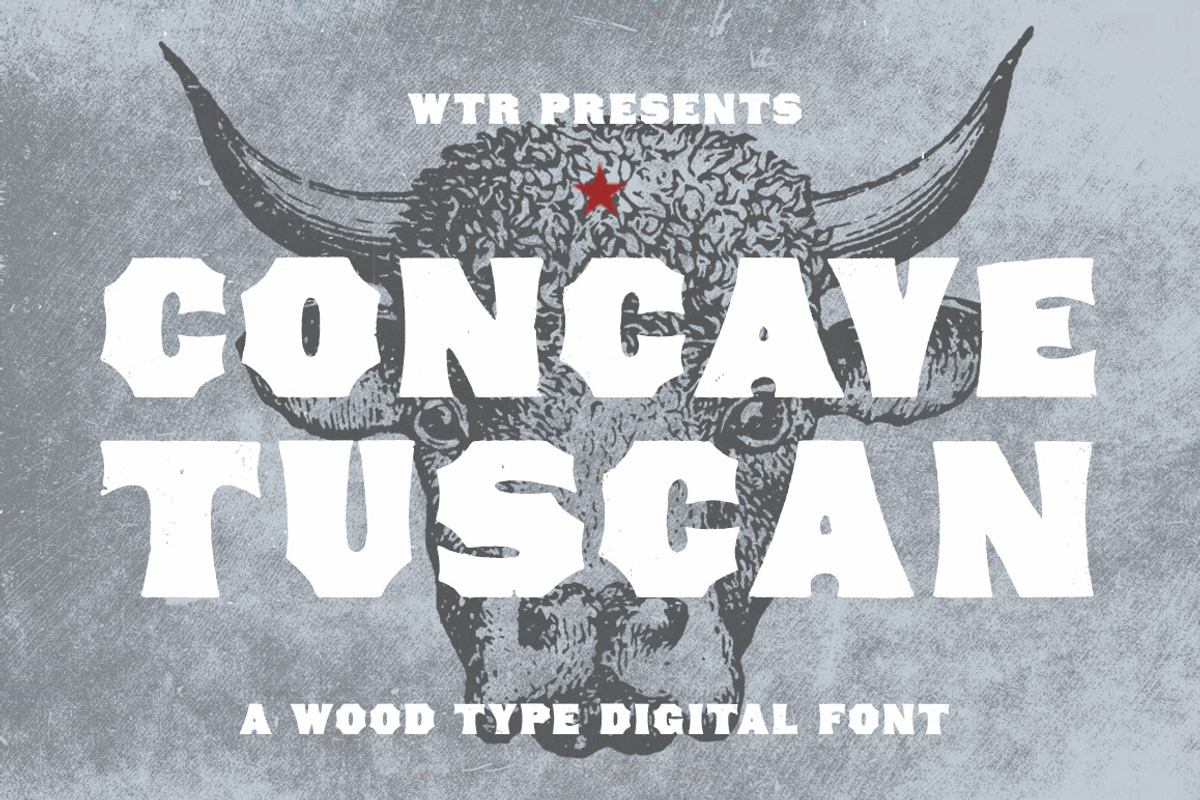
Concave Tuscan Font is ideal for vintage poster design, classic Americana branding, Western-themed projects, historical signage reproduction, antique shop marketing, old-fashioned barbershop logos, traditional craft packaging, and nostalgic advertising campaigns.
What makes Concave Tuscan Font so exciting is its authentic Victorian-era character that perfectly captures the ornate elegance and decorative sophistication of 19th-century typography through distinctive concave letterforms and traditional Tuscan styling. This historic display typeface features characteristic bifurcated serifs and curved letter shapes that create an unmistakably period-appropriate aesthetic. The font's vintage authenticity and decorative appeal make it ideal for brands and projects seeking to communicate heritage, craftsmanship, and traditional American design values.
The Concave Tuscan Font family includes regular and bold variations, along with decorative elements and period-appropriate ornamental features that provide designers with comprehensive tools for creating authentic Victorian-style typography systems.
Concave Tuscan Font Free Download presents designers with access to premium historical typography that perfectly embodies the craftsmanship and decorative artistry of America's golden age of lettering. This distinctive typeface excels in applications where historical authenticity and vintage charm are essential brand elements, making it perfect for heritage brands, artisanal businesses, historical venues, and traditional craft companies. The font's Victorian character makes it particularly effective for museums, antique dealers, traditional restaurants, and cultural preservation projects.
The meticulously researched letterforms of Concave Tuscan Font maintain historical accuracy while ensuring modern usability across contemporary applications. Each character reflects genuine period typography principles, creating text that appears authentically Victorian rather than artificially nostalgic. This historical precision makes the font valuable for projects requiring genuine period authenticity and traditional American design heritage.
For heritage and traditional branding, Concave Tuscan Font provides the perfect solution for organizations wanting to establish authentic connections with American design history through superior period typography. The font's distinctive Victorian character allows it to communicate tradition and craftsmanship while maintaining visual impact across print, digital, and environmental applications where historical typography enhances brand storytelling and cultural authenticity.